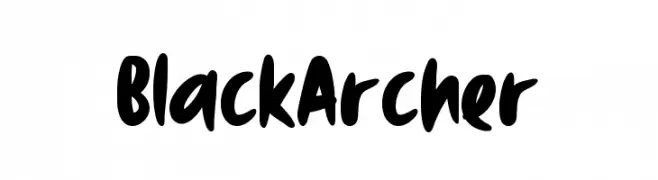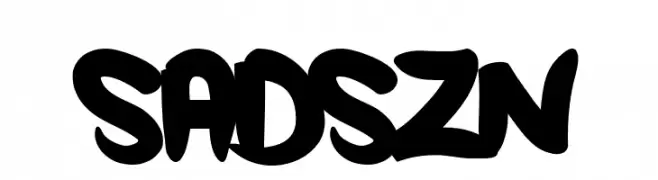
A bold, handwritten font with a playful and energetic style.
A cursive, handwritten-style font with elegant, flowing characters.
A bold, expressive handwritten font with fluid, cursive strokes.
A playful handwritten font with a casual and friendly style.
An elegant and flowing script font with intricate, artistic letterforms.
A modern, double-line stroke font with a geometric and hollow design.
A bold, distressed font with a vintage, stamp-like texture.
A bold, graffiti-style font with rounded, hand-drawn characters.
A playful, hand-drawn font with a whimsical and quirky style.
A creative font inspired by American Sign Language, featuring hand gesture representations for each character.